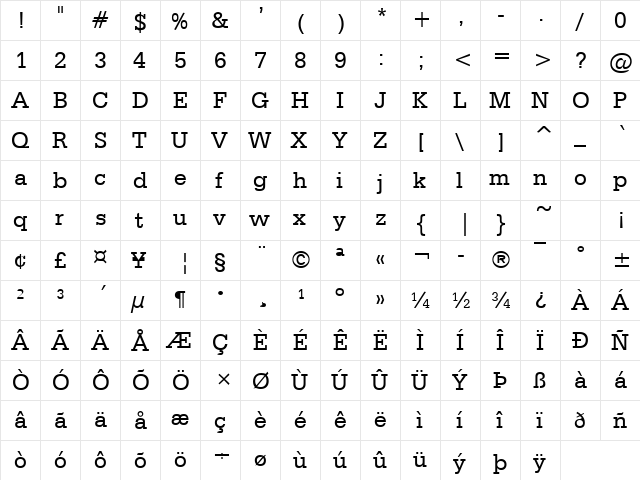
Classic Typewriter Regular
Design Context for Classic Typewriter Typeface
Classic Typewriter has the warm character of retro typography — evoking diners, record sleeves, and the golden age of print advertising.
Font Pairing: Combine Classic Typewriter with a simple slab or neutral sans — period-accurate companions reinforce the vintage feel without competing for attention.
Pro Tip: Use Classic Typewriter for headlines and pull quotes rather than body copy — its personality is best appreciated in short, focused bursts.